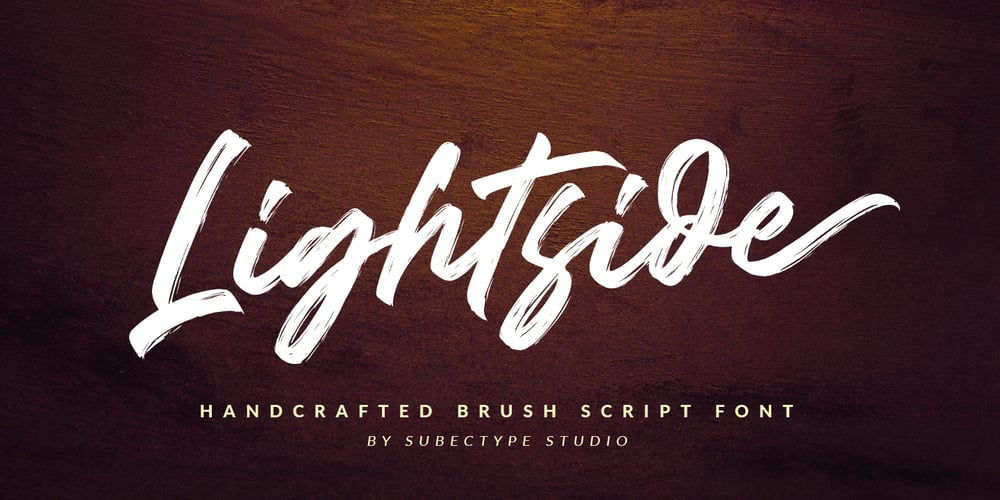
Lightside Font Family was designed by Rangga Subekti and published by Subectype. Lightside contains 1 styles and family package options. Lightside is a brush script font, dapper handwritten font with a personal charm. With quick dry strokes and a signature style, Lightside is perfect for branding projects, homeware designs, product packaging – or simply as a stylish text overlay to any background image.Fonts include multilingual support. Please message me if you’re unsure of any language support.Ligatures are also available for several lowercase characters (double-letters which flow more naturally). These are only accessible via software with OpenType capability or a glyphs panel, e.g. Photoshop/Illustrator.Note: in the preview there is a swash. I do not provide swash, I made the swash from the characters “Parenleft or right” and “backslash” I edited it in Corel Draw.